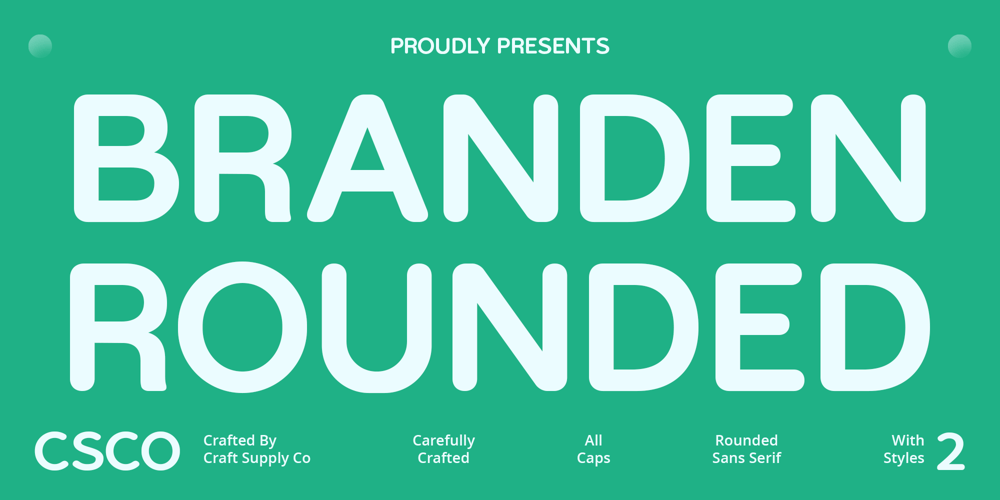
Branden Rounded Font Family was designed by Trio Nazzar Saputra, Wahyu Hadi Yuana and published by Craft Supply Co. Branden Rounded contains 2 styles and family package options. Branden Rounded: Versatile Sans SerifSmooth Rounded StemsBranden Rounded features rounded stems, adding a touch of softness and elegance to its sans serif design.Perfect for Casual and Formal DisplayVersatile in its application, This font suits both casual and formal display needs. Its balanced aesthetics make it suitable for various contexts.Ideal for a Range of ProjectsWhether you’re crafting a casual poster or designing a formal invitation, This font offers flexibility and adaptability for a wide range of projects.Seamless Blend of Style and FunctionalityWith its rounded stems and versatile design, This font seamlessly blends style and functionality, ensuring that your message is conveyed effectively in any display setting.Balancing Elegance and VersatilityThis font stands out as a versatile sans serif font, characterized by its smooth rounded stems and adaptability for both casual and formal display purposes. Embrace the blend of elegance and versatility offered by this font and elevate your design projects with ease.